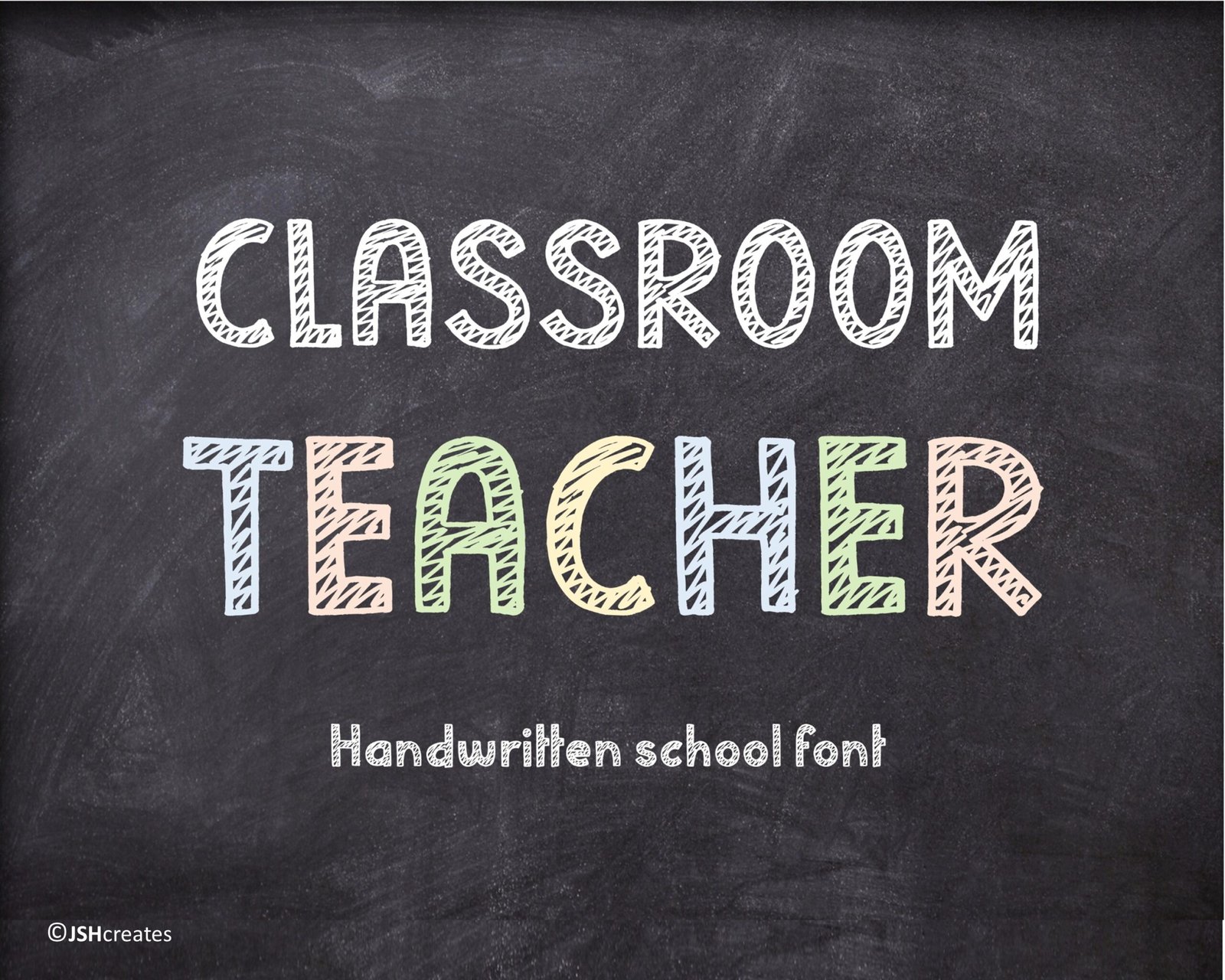
Classroom Teacher Font
Handwritten school font. “Classroom Teacher”. Perfect for advertising and display purposes, including banners, book covers, shirts, posters, logos and much more!